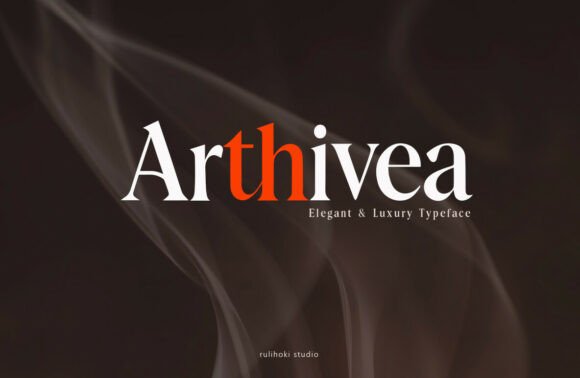
The Elegant Arthivea Font: Elevate Your Designs with Sophistication
I’ll never forget the time I was working on a luxury branding project for a high-end fashion label. My client wanted a font that exuded elegance, sophistication, and a touch of classic glamour. I scoured the internet, tried countless fonts, but nothing seemed to fit the bill. That was until I stumbled upon Arthivea – a modern serif typeface that instantly caught my attention. In this article, I’ll share my experience with Arthivea, its features, and how to make the most of this stunning font.
Arthivea: A Modern Serif Typeface
Arthivea is a modern serif typeface designed with elegance, balance, and contemporary sophistication. Featuring refined letterforms, graceful curves, and sharp serifs, Arthivea blends classic serif beauty with a modern editorial touch. This font is perfect for luxury branding, fashion labels, perfume packaging, editorial layouts, logos, invitations, and high-end design projects.
Here’s what I love about Arthivea:
- ✨ Elegant and sophisticated: Arthivea’s refined letterforms and sharp serifs make it perfect for high-end designs.
- ✅ Versatile: This font works beautifully for headlines, body text, and even titles.
- 💯 Timeless yet distinctive: Arthivea’s classic serif beauty is balanced with modern touches, making it stand out from the crowd.
And here are some small quirks to keep in mind:
- 🤔 Limited availability of certain characters: Some special characters might not be available, so make sure to check the font’s capabilities before using it.
- ⚠️ Not suitable for body text: While Arthivea is amazing for headlines and titles, it might not be the best choice for long-form body text due to its elegant, yet slightly ornate nature.
The Story Behind Arthivea
Arthivea was designed with the goal of creating a modern serif typeface that blends classic elegance with contemporary sophistication. Inspired by traditional serif fonts, Arthivea’s designer aimed to create a font that would be perfect for luxury branding, fashion labels, and high-end design projects. With its refined letterforms, sharp serifs, and elegant curves, Arthivea has become a go-to font for designers looking to add a touch of sophistication to their designs.
| What is Arthivea? | Arthivea is a modern serif typeface designed with elegance, balance, and contemporary sophistication. |
| What is Arthivea best used for? | Arthivea is perfect for luxury branding, fashion labels, perfume packaging, editorial layouts, logos, invitations, and high-end design projects. |
| Can I use Arthivea for body text? | While Arthivea is amazing for headlines and titles, it might not be the best choice for long-form body text due to its elegant, yet slightly ornate nature. |
| Is Arthivea available in different weights? | Yes, Arthivea is available in multiple weights, making it versatile for various design applications. |